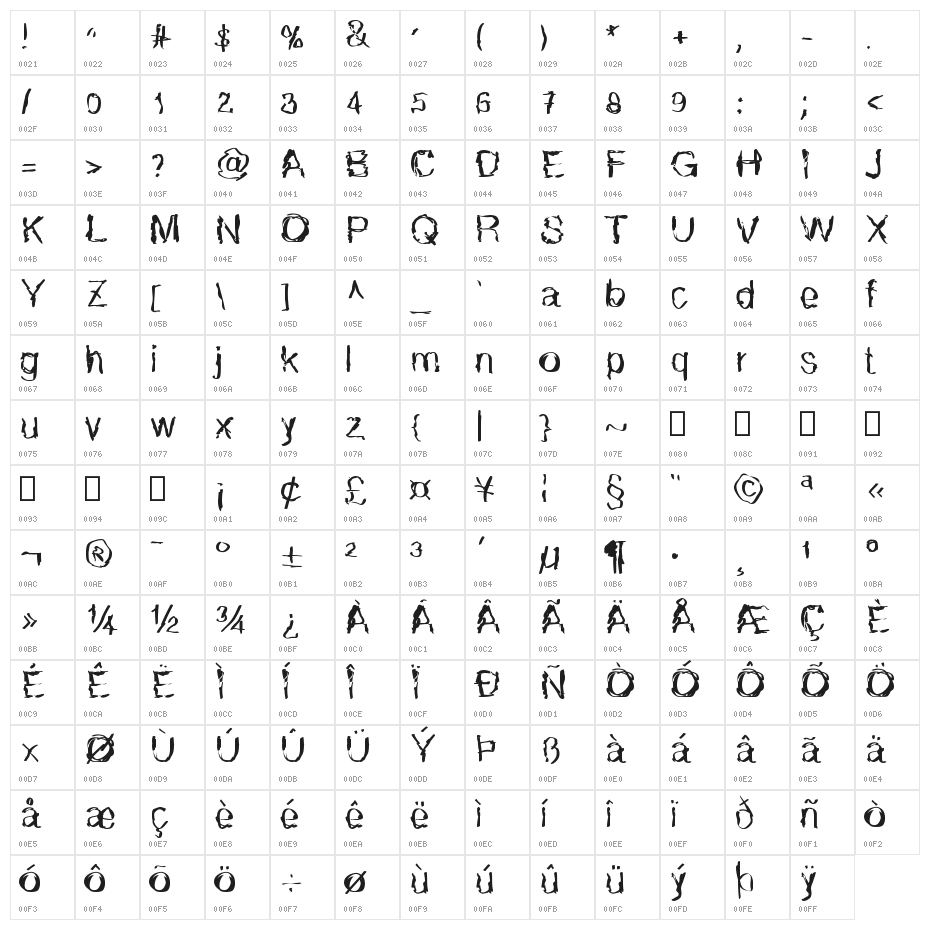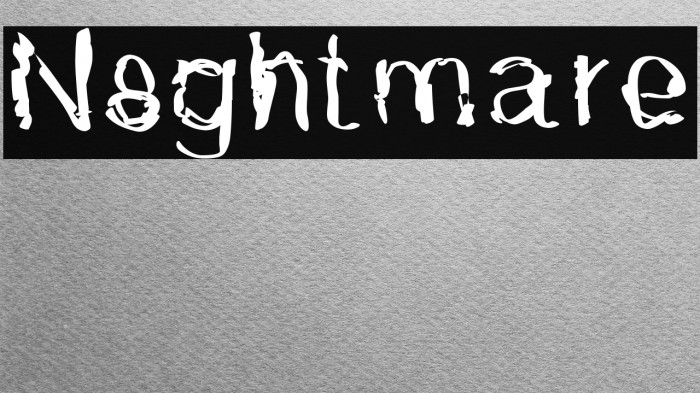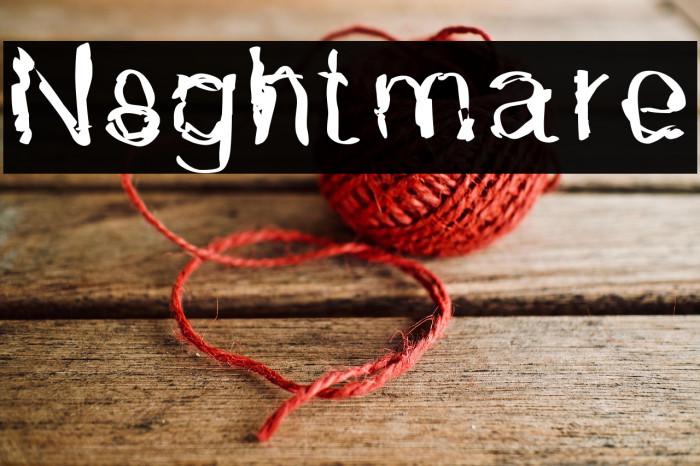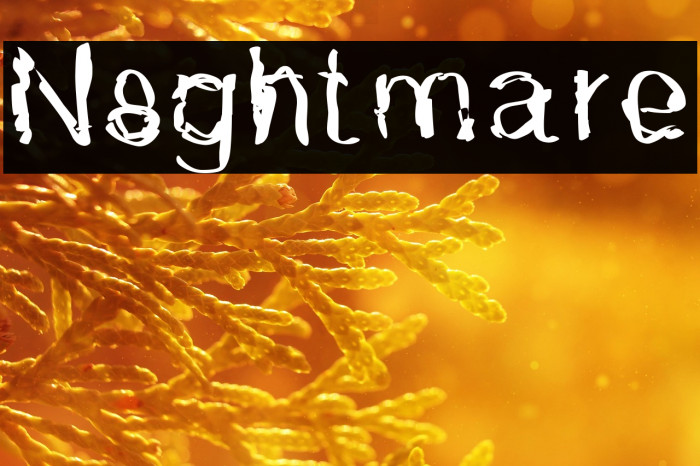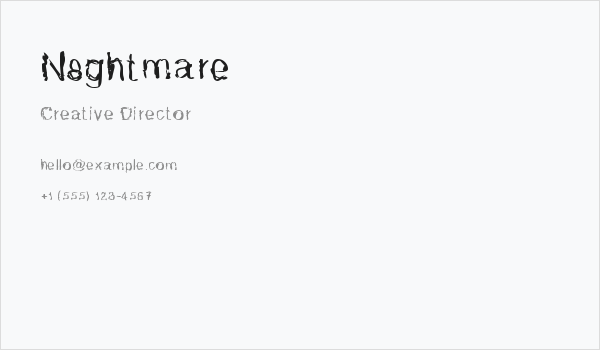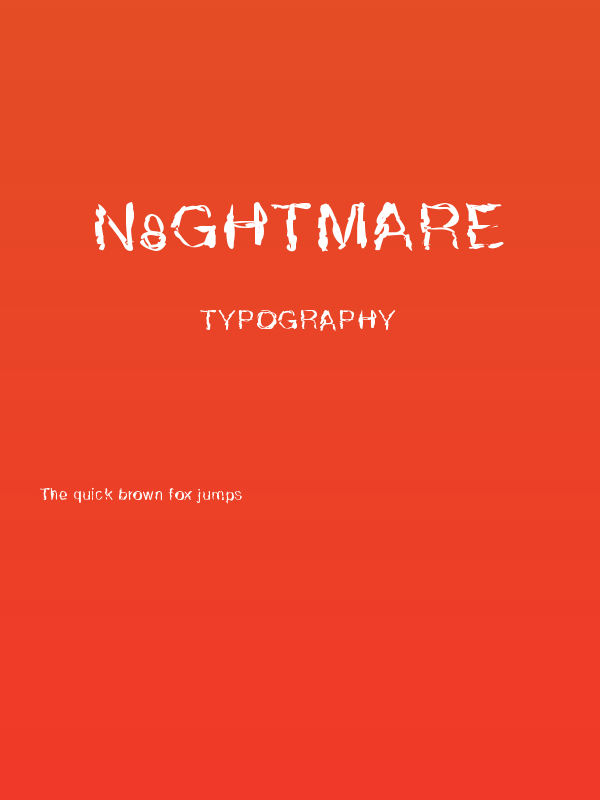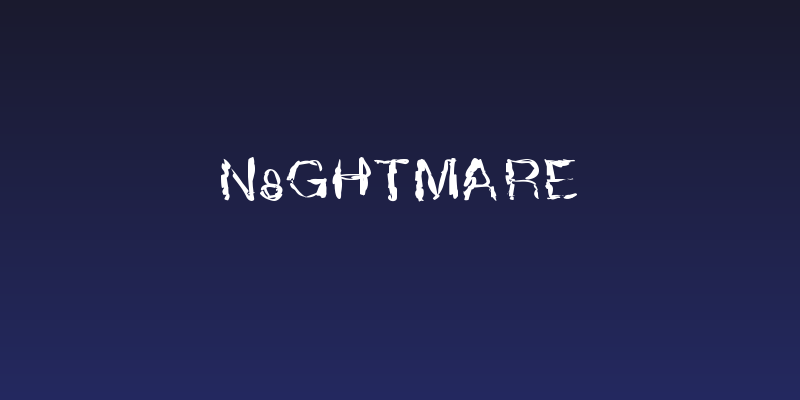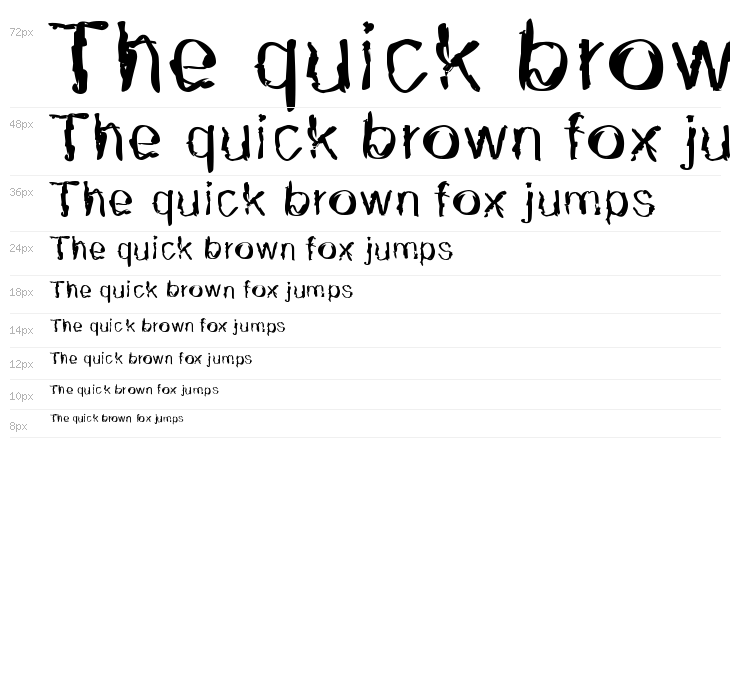
N8ghtmare Font
N8ghtmare Description
This font features a distressed and chaotic style, with each character appearing as if it has been roughly painted or scratched. The uneven edges and irregular shapes give it a raw, grungy aesthetic. The uppercase and lowercase letters maintain a consistent theme of unpredictability, with strokes that vary in thickness and direction. Numbers and special characters follow the same design, adding to the overall edgy and rebellious feel. This font is perfect for projects that require a sense of urgency or a gritty, urban vibe.
| Overall Style | Grunge, Urban, Edgy |
| Use Case | Headlines, Posters, Album Covers |
| Proposed Projects | Ideal for horror-themed designs, album covers, street art, or any project needing a raw, edgy look. |